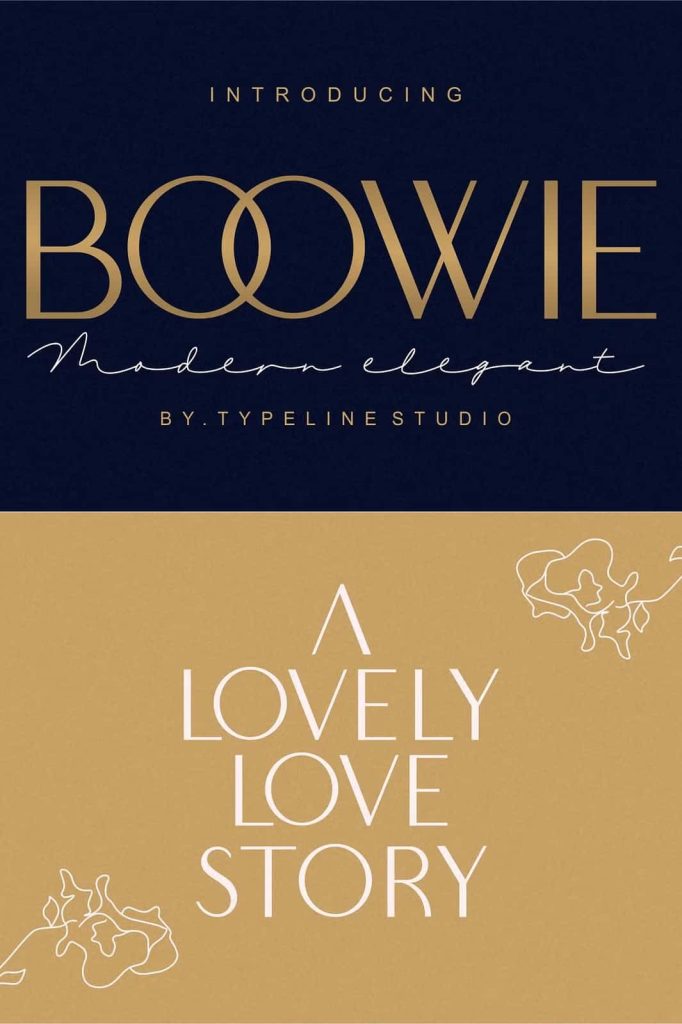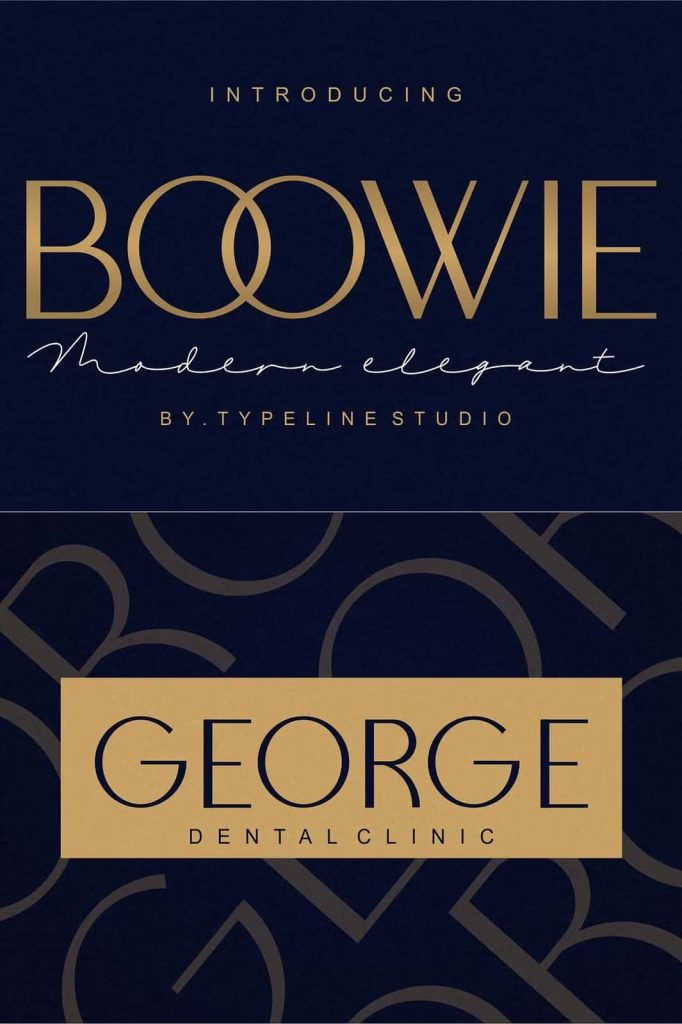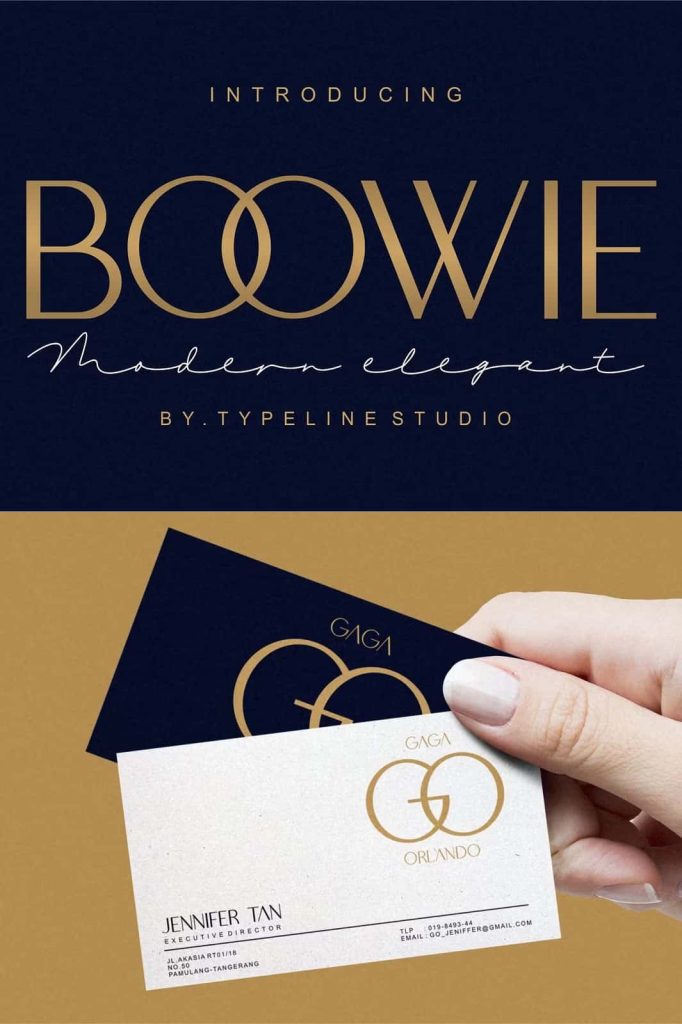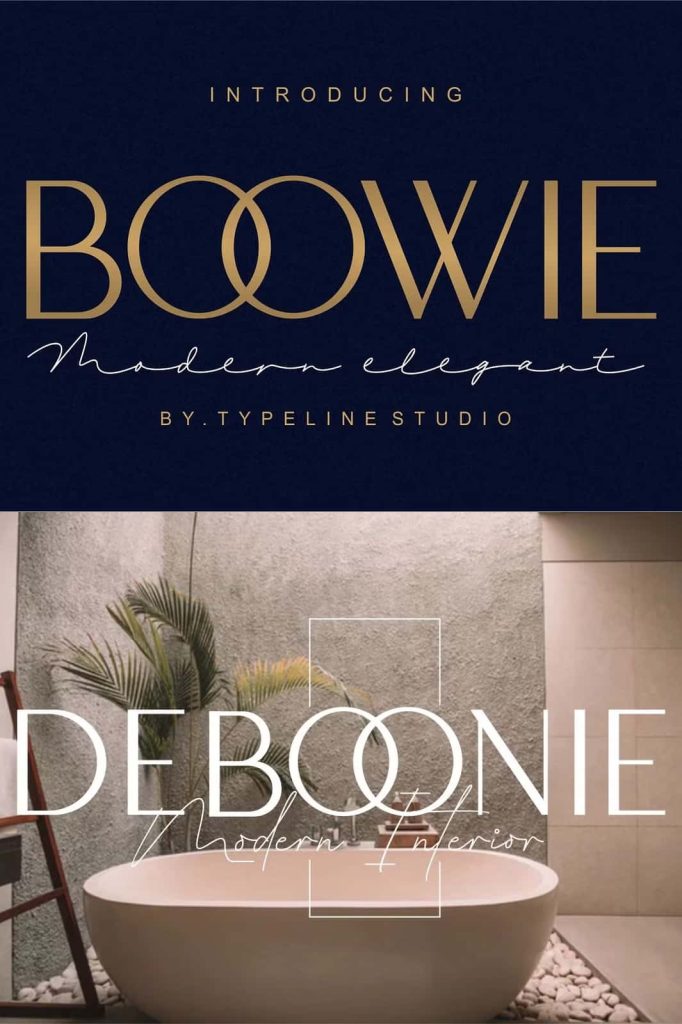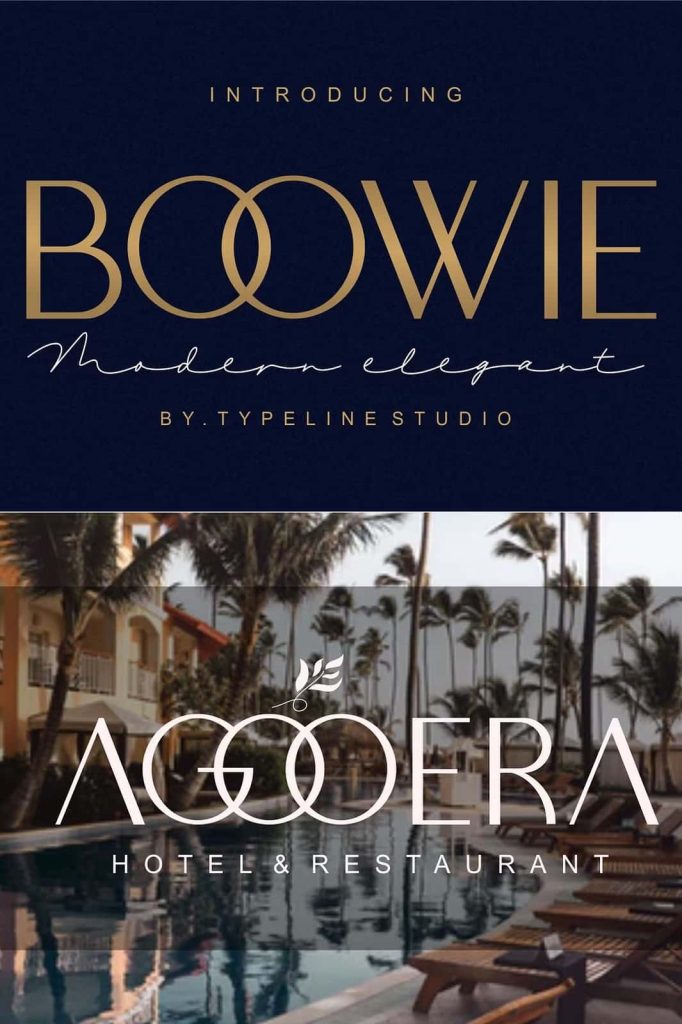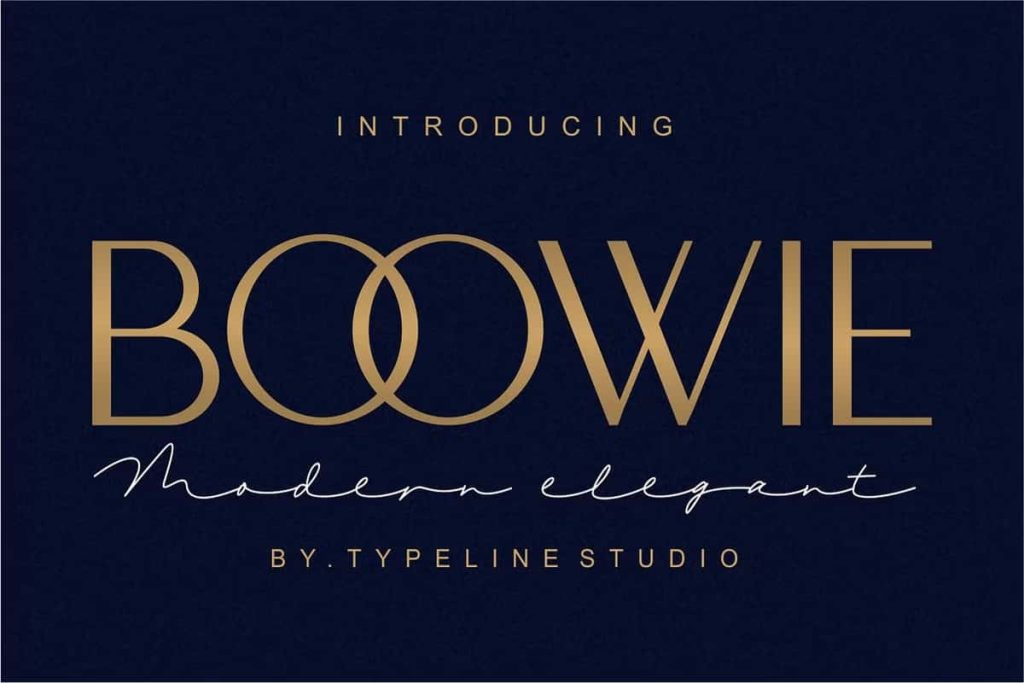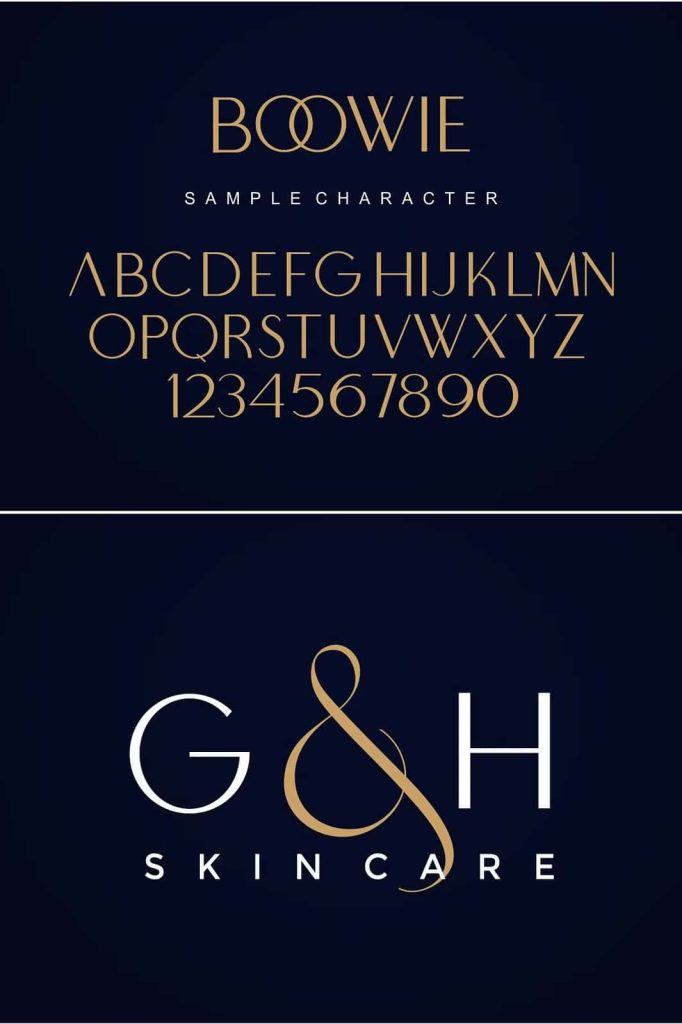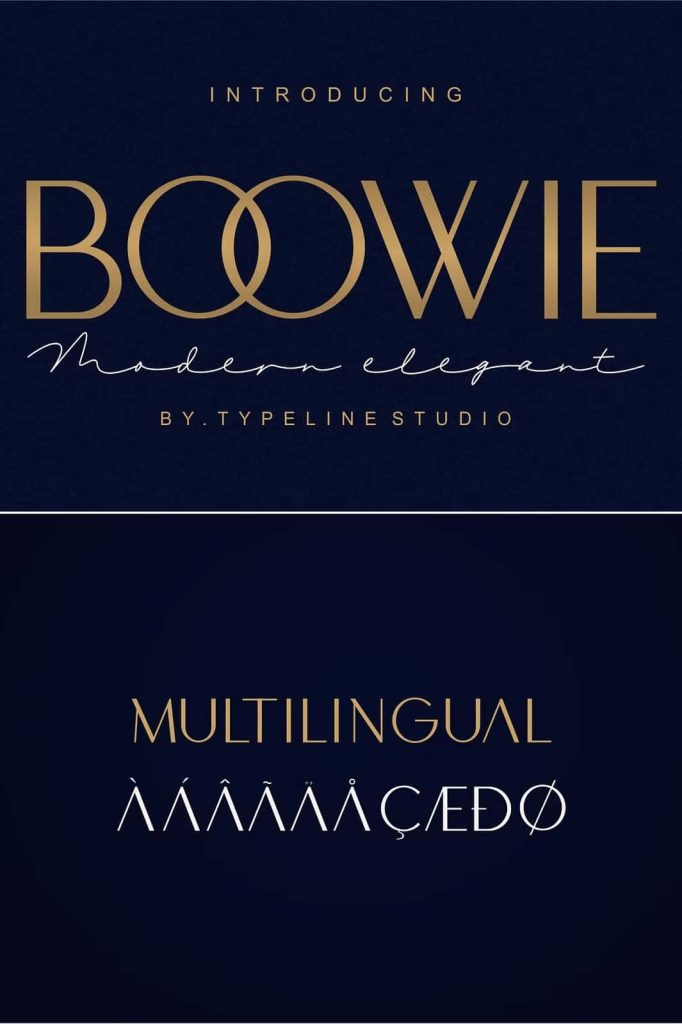
Boowie: A Minimalist Sans Serif Font with Modern Vintage Appeal
Boowie is a minimalist sans serif font designed to bring clarity, style, and versatility into your creative projects. Featuring both regular and italic versions, this typeface gives you the flexibility to build balanced and visually engaging designs. Its clean lines and subtle character details create a perfect harmony between modern simplicity and vintage charm.
This font allows designers to craft elegant compositions without unnecessary complexity. Boowie focuses on essential forms, helping your content stand out through refined typography. Whether you are working on branding, editorial layouts, or digital content, Boowie delivers a sleek and professional result every time.
Minimalist Design with a Distinct Personality
Boowie embraces a minimalist approach while maintaining a unique identity. Its letterforms are carefully shaped to ensure readability while still offering a stylish and contemporary feel. The font avoids excessive decoration, allowing your message to remain clear and impactful.
At the same time, Boowie introduces a subtle vintage influence that adds warmth and character. This combination of modern and retro elements makes it highly adaptable across different design styles. You can use it for projects that require a clean look with a hint of personality.
Key Features of Boowie
- Minimalist sans serif style with clean structure
- Includes both regular and italic versions
- Balanced readability for print and digital use
- Modern design with vintage-inspired character
Perfect Choice for Logos and Branding
Boowie works exceptionally well in logo design and branding projects. Its minimalist structure ensures that logos remain timeless and easy to recognize. The italic version adds contrast and motion, allowing you to create dynamic brand identities with ease.
When used in branding, Boowie communicates professionalism and creativity. It adapts to various industries, from fashion and lifestyle brands to creative studios and modern businesses. The font’s versatility allows you to maintain a consistent visual identity across multiple platforms.
Branding Applications
- Logo design and brand marks
- Business cards and stationery
- Packaging and product labels
- Marketing and promotional materials
Ideal for Print and Editorial Design
Boowie enhances print materials with its clean and readable style. It performs beautifully in magazines, brochures, and collage-based designs. The font’s simplicity ensures that text remains legible while contributing to an overall polished layout.
Designers can rely on Boowie for both headlines and body text. Its regular style provides clarity for longer passages, while the italic version adds emphasis and variation. This balance makes it an excellent choice for editorial projects that require both functionality and style.
Best Uses in Print
- Magazine layouts and editorial design
- Brochures and flyers
- Collage and artistic compositions
- Books and printed publications
Versatile for Digital and Creative Projects
Boowie transitions seamlessly into digital environments. It works effectively for website layouts, social media graphics, and online branding. Its minimalist design ensures fast readability on screens, while its subtle personality keeps your visuals engaging.
You can use Boowie to create modern website headers, clean user interfaces, and stylish social media posts. The font’s adaptability allows you to maintain a cohesive look across all digital platforms.
Recommended Digital Uses
- Website typography and UI design
- Social media graphics and posts
- Digital advertisements
- Online portfolios and presentations
Create Timeless Designs with Boowie
Boowie offers a perfect balance between simplicity and character. Its minimalist approach keeps your designs clean and focused, while its modern vintage touch adds depth and uniqueness. With both regular and italic styles available, you gain the flexibility to experiment and refine your typography.
Choose Boowie when you want to create designs that feel modern, elegant, and timeless. This font empowers you to communicate your ideas clearly while maintaining a strong visual identity across every project.